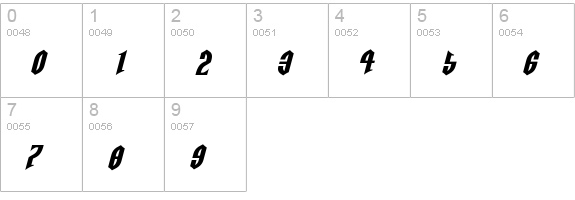
Golgotha Oblique E. Font Details
Golgotha Oblique E. is a distinctive, italic variant in the Golgotha typeface family \xE2\x80\x94 well suited to design and typography projects.
Golgotha Oblique E is a striking and versatile font that combines modern design elements with a touch of classic elegance. Its sleek and stylish appearance makes it perfect for a wide range of design projects, from branding to editorial design. The unique oblique angle of the letters adds a dynamic and contemporary feel to any text. This font is available in a variety of weights and styles, making it easy to customize and adapt to suit your specific needs. Whether you're looking to create eye-catching headlines or elegant body text, Golgotha Oblique E has you covered. Best of all, Golgotha Oblique E is completely free to download at FontsMarket.com. This means you can access this high-quality font without any cost, making it a fantastic option for designers on a budget. Don't miss out on the opportunity to enhance your designs with the unique style and sophistication of Golgotha Oblique E font. Download it today and take your projects to the next level!